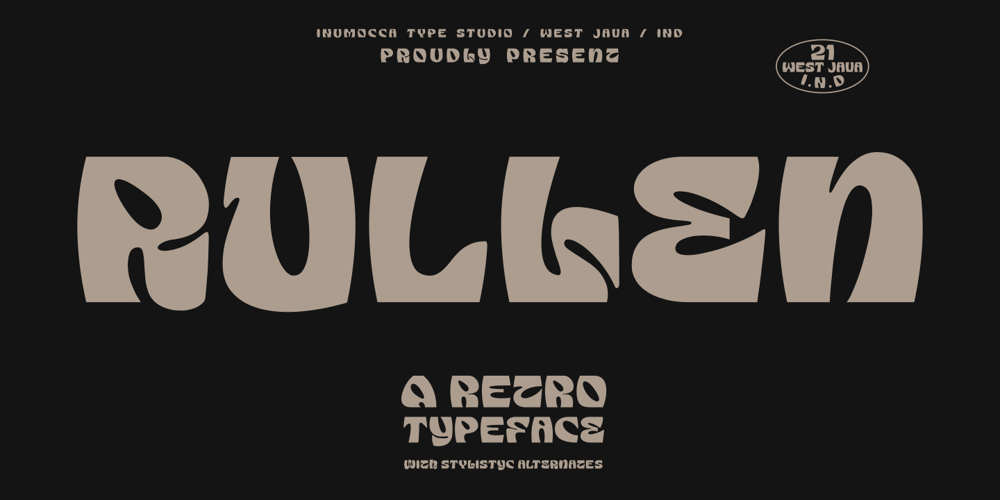
Rullen Font Family was designed by Inu Mocca and published by Inumocca. Rullen contains 1 styles and family package options. Rullen is A Retro typefacethe 70s font style great choice for expressing a summer.The Typeface comes with Stylistic Set Exellent typeface to use for covering your Project, like Branding, Movie Title, Headline Letter, Bookcover or Book Content, Magazine cover, Poster, Quotes Lettering, Logos, and more your project design.- Unique glyphs- Multilingual Characters Support- UPPERCASE- Lowercase- Numeric- Symbol- Punctuation Character- Stylistic Setinumocca type Studio